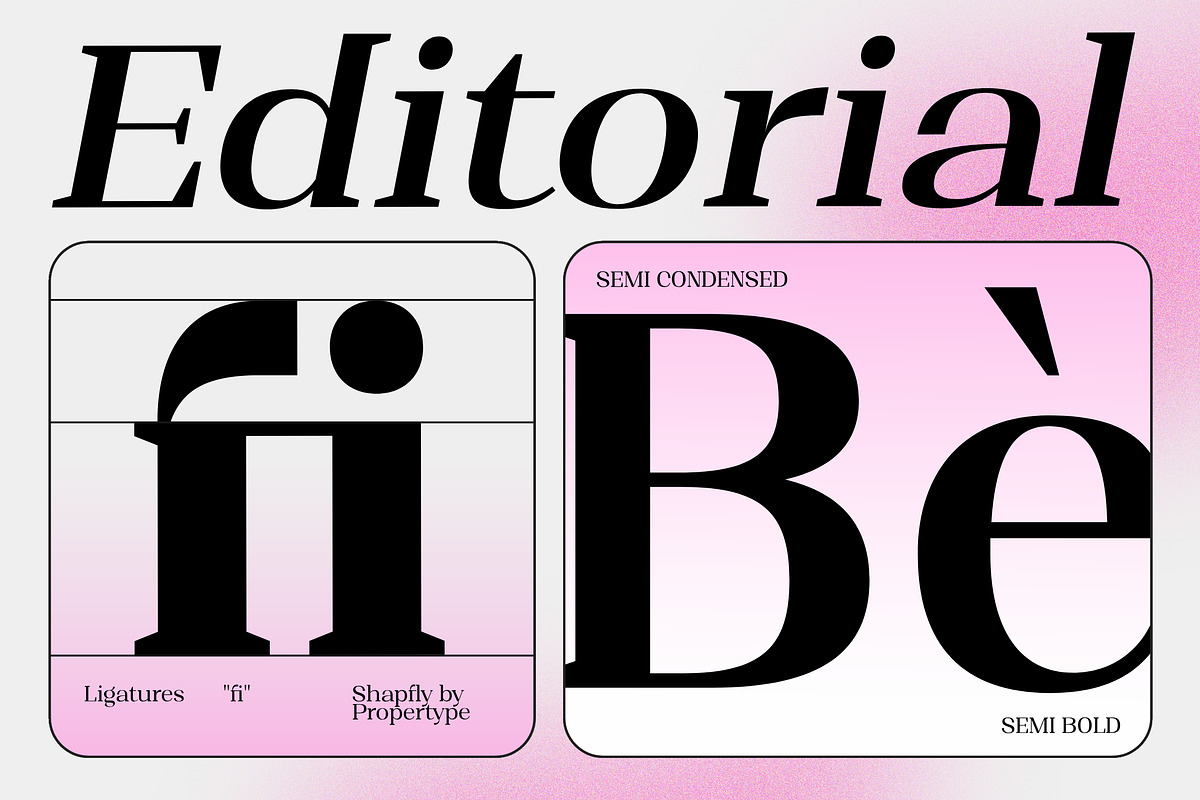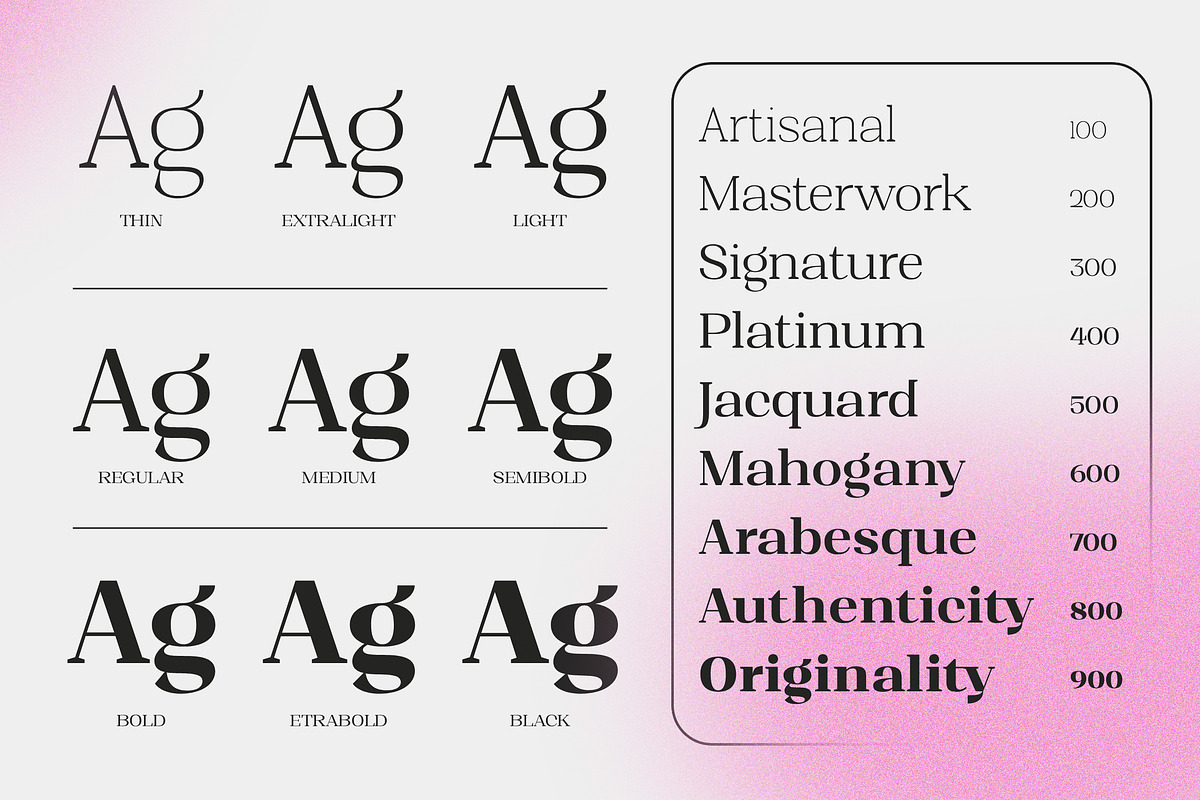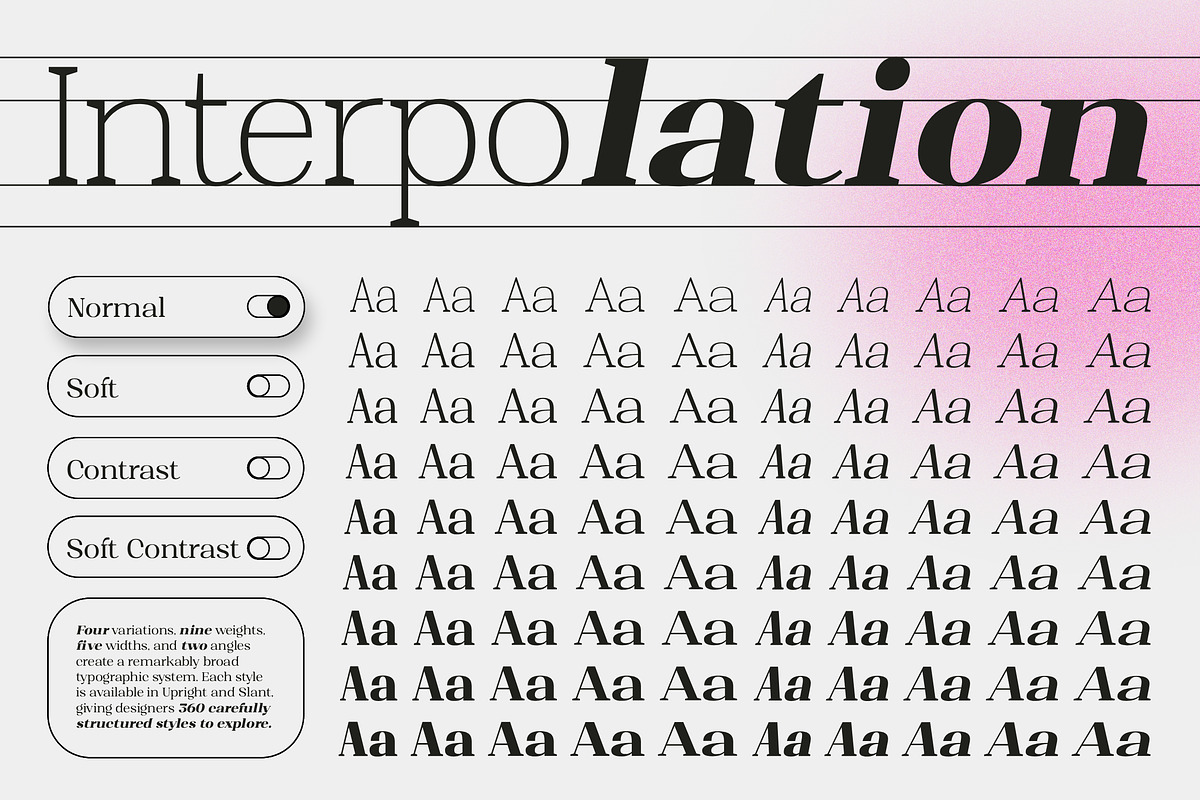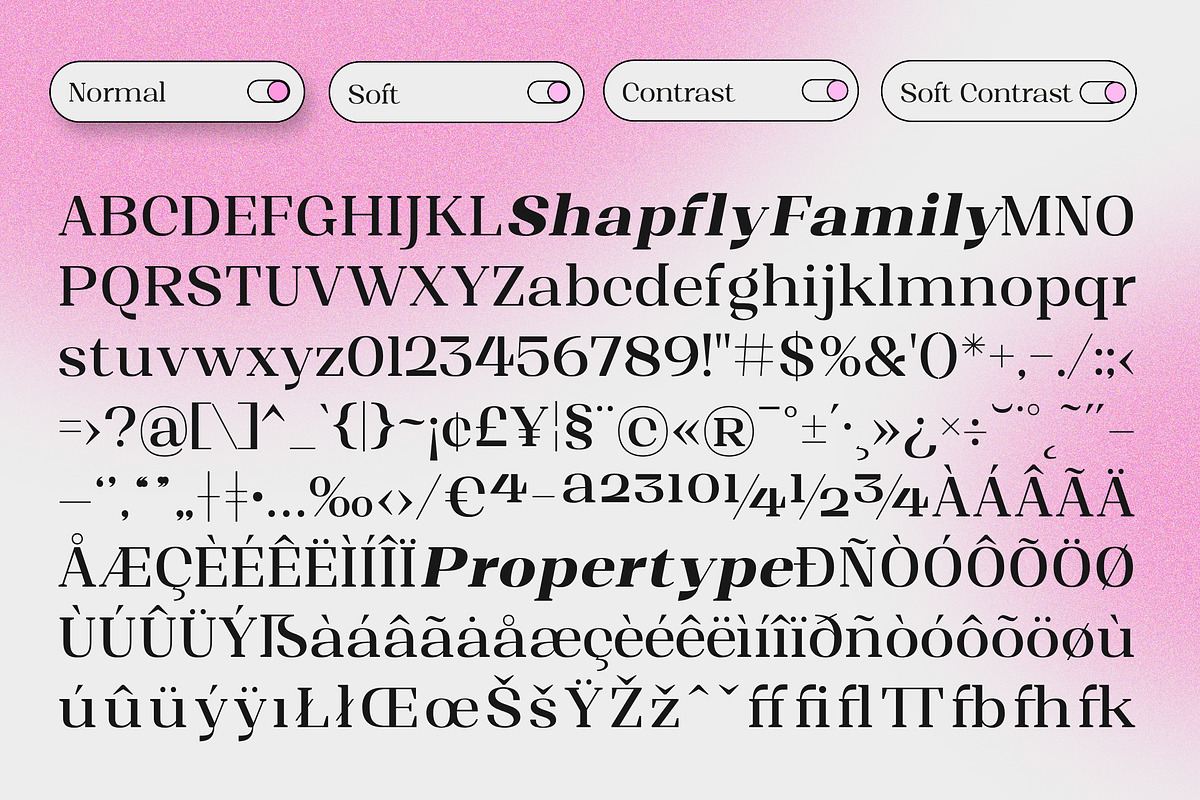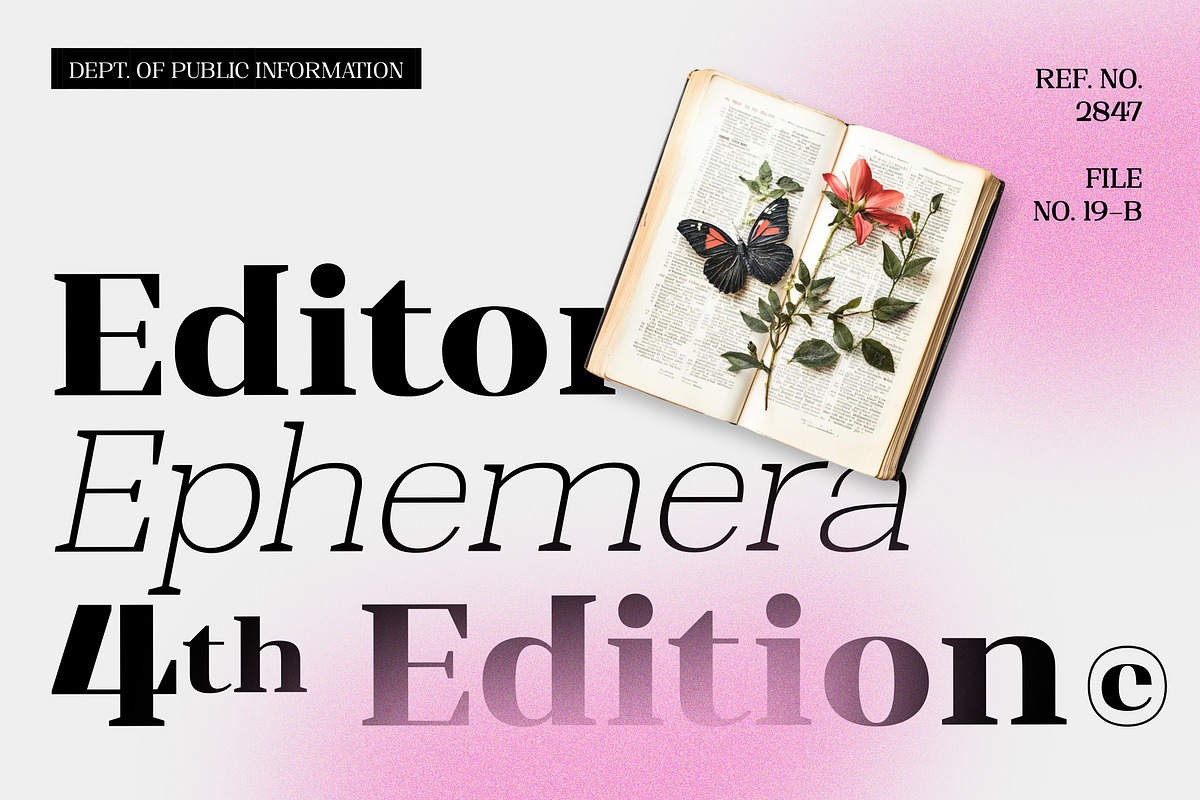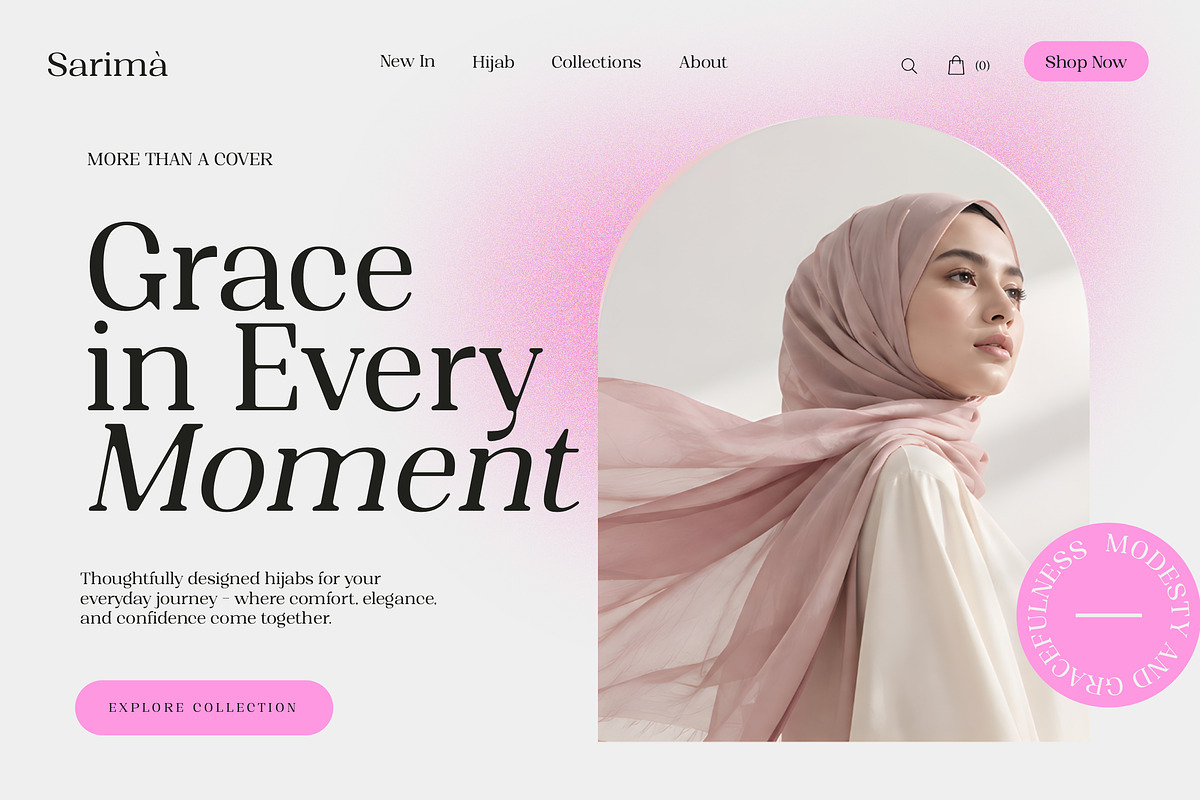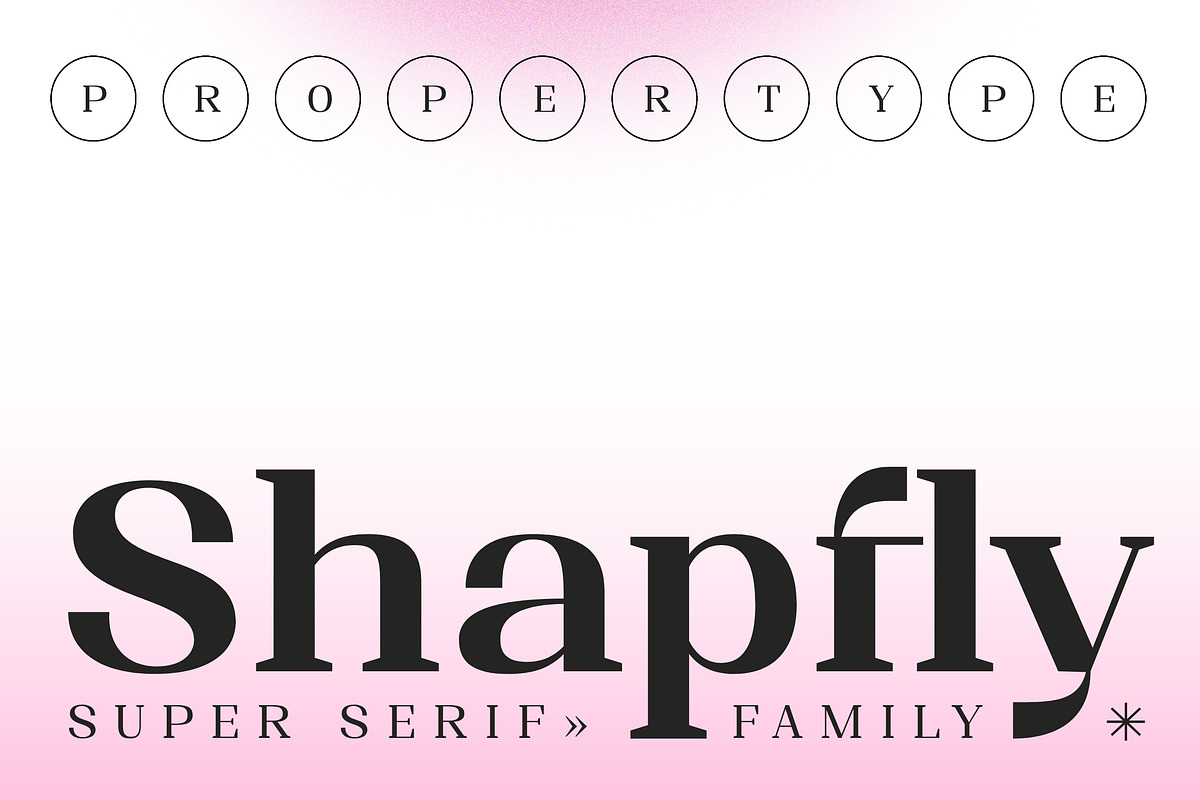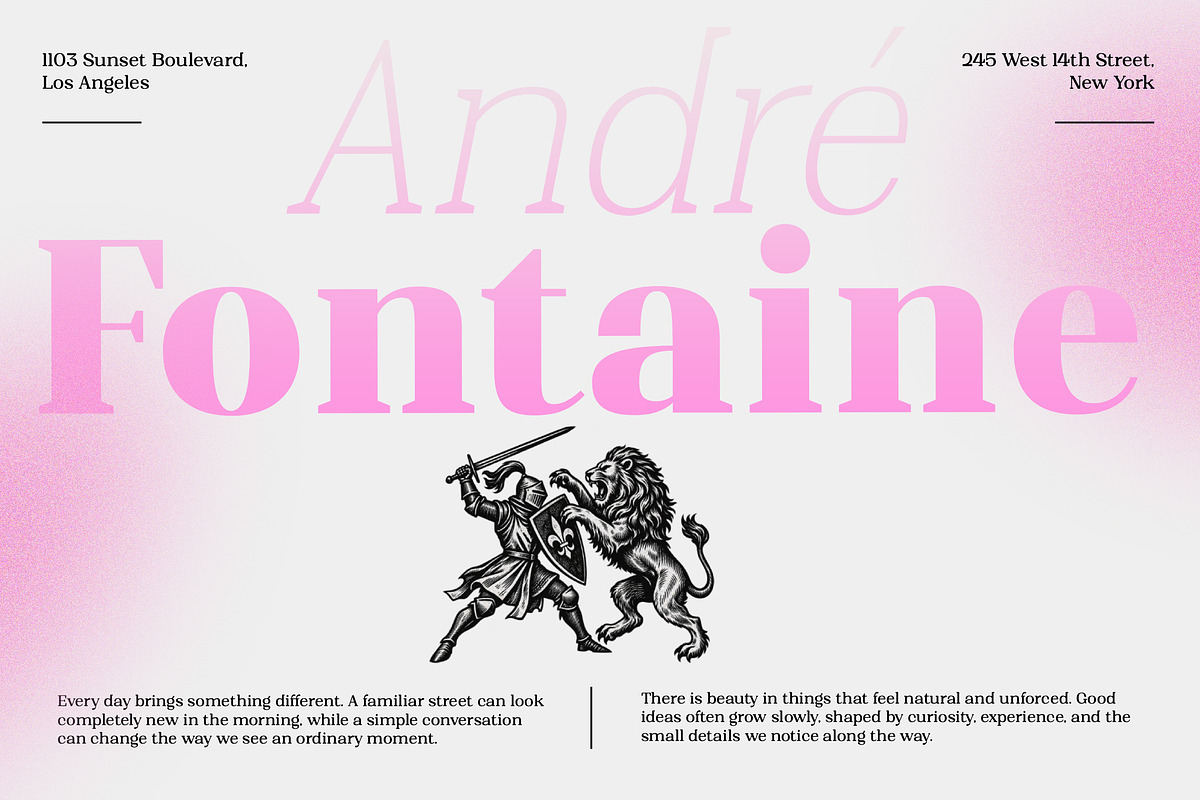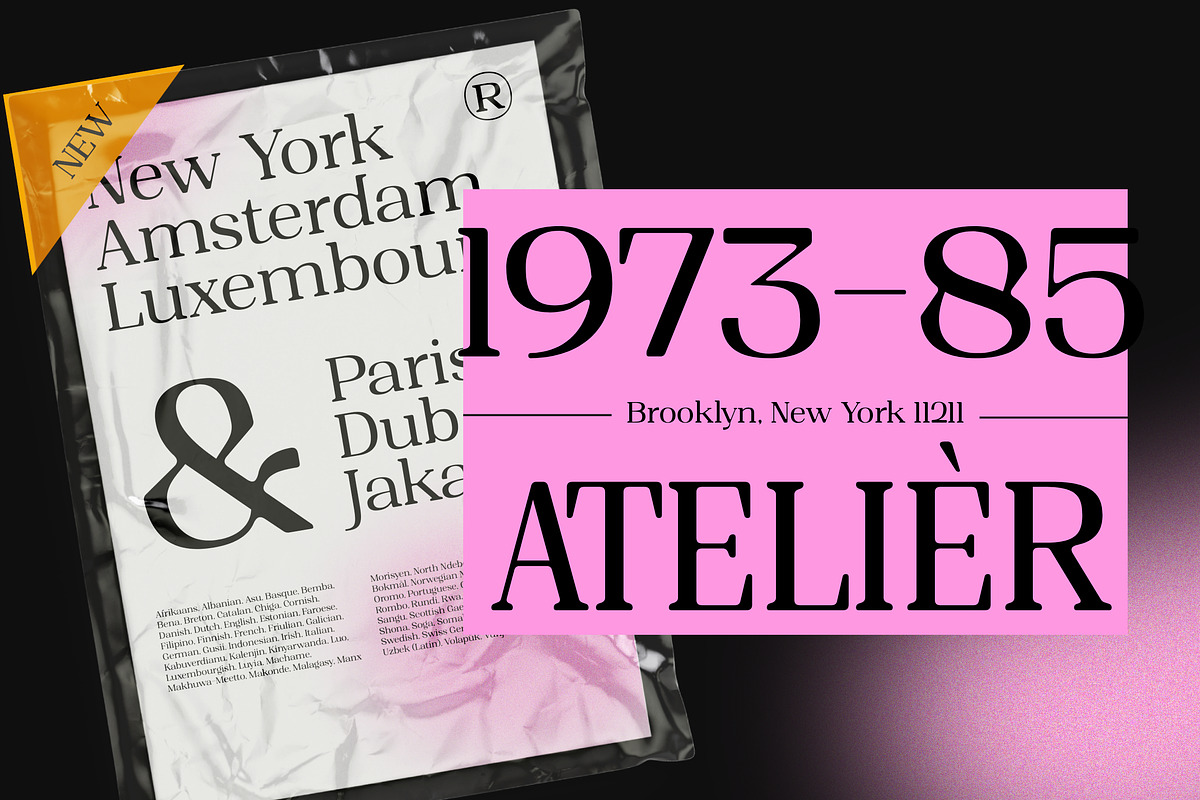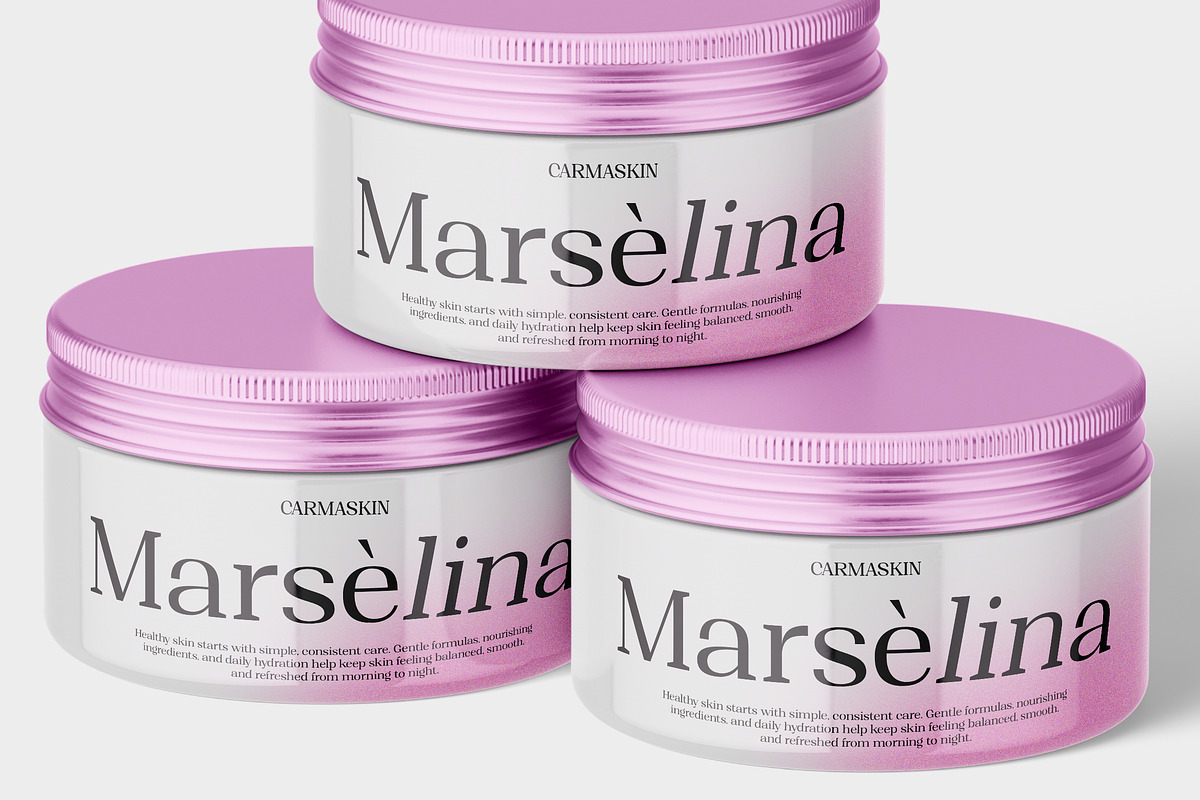
Shapfly
Shapfly Variable features high contrast, strong ink Shapfly, sharp shapes, and clean cuts to create a luxurious and elegant feel with a distinctive look. Each typeface has a warm personality and a contemporary look.
With a variety of different styles, you can choose the best result for your design. You can vary the feel of your design, from subtle to bold, to the most striking style. Shapfly Serif is a brilliant choice for branding, identity design, editorial design, logo design, display and packaging design, and more.